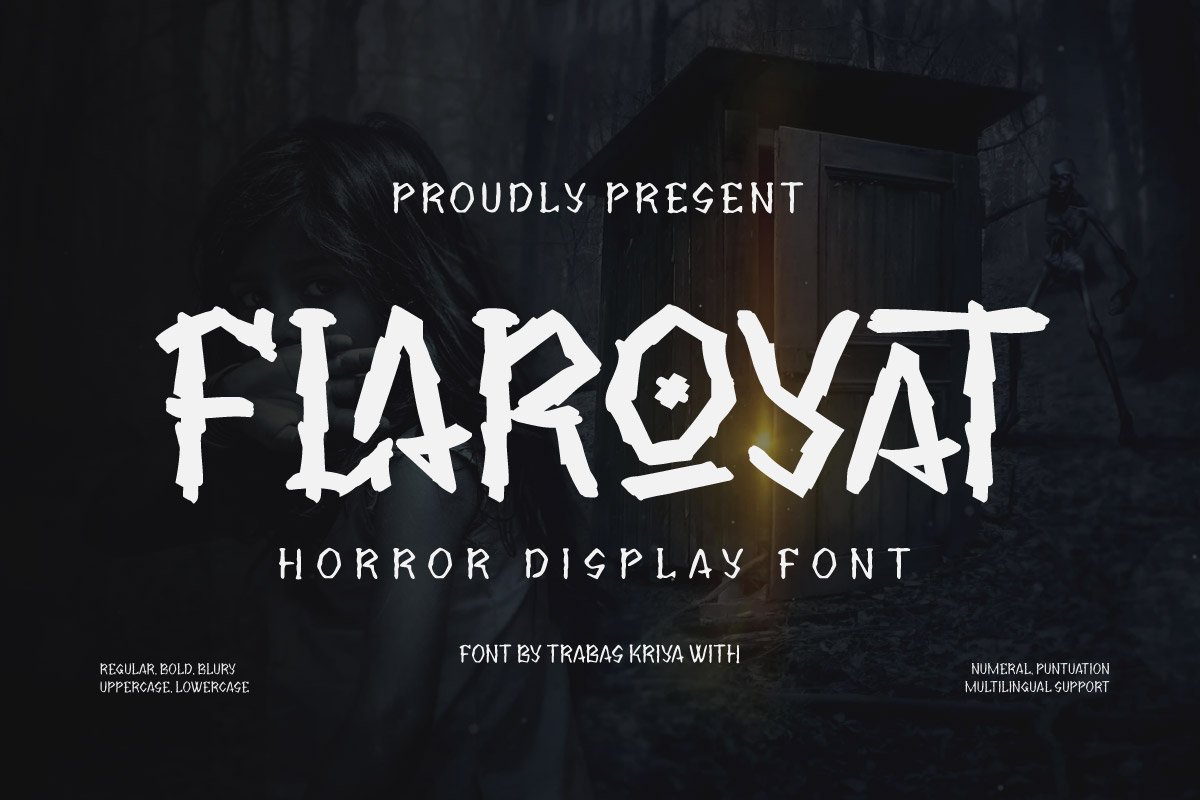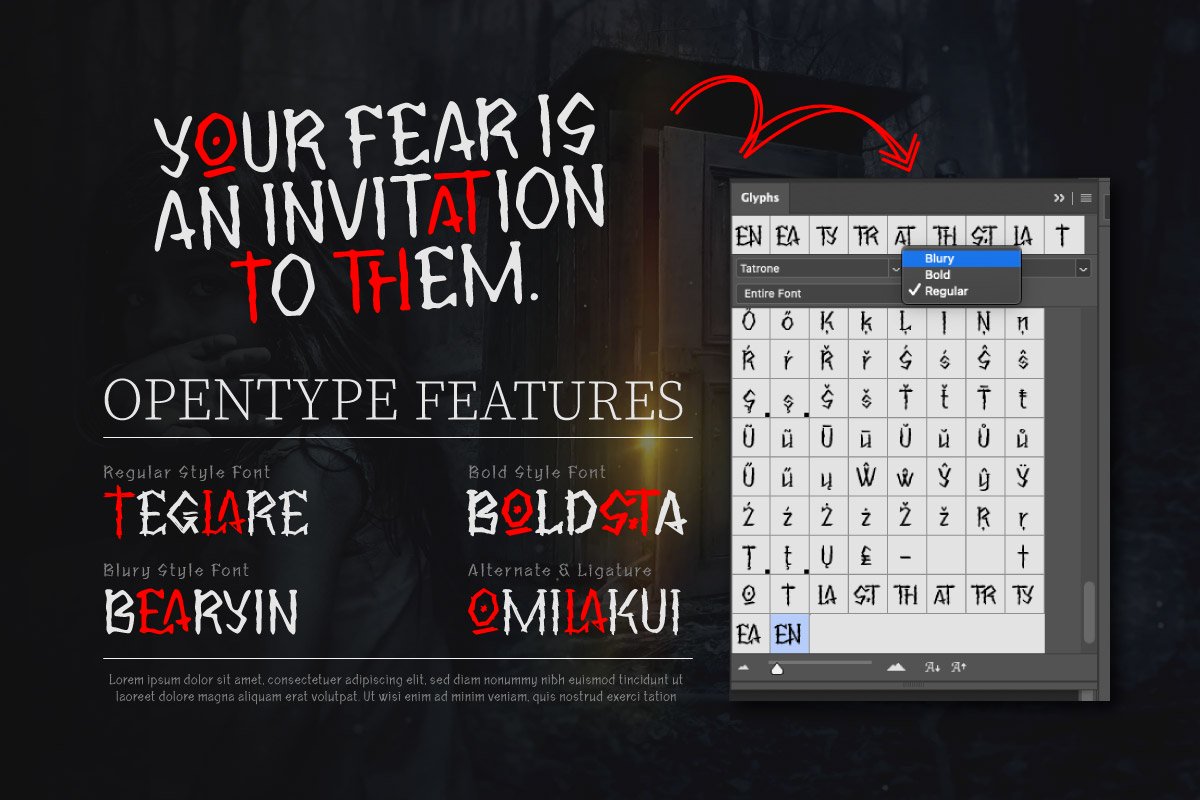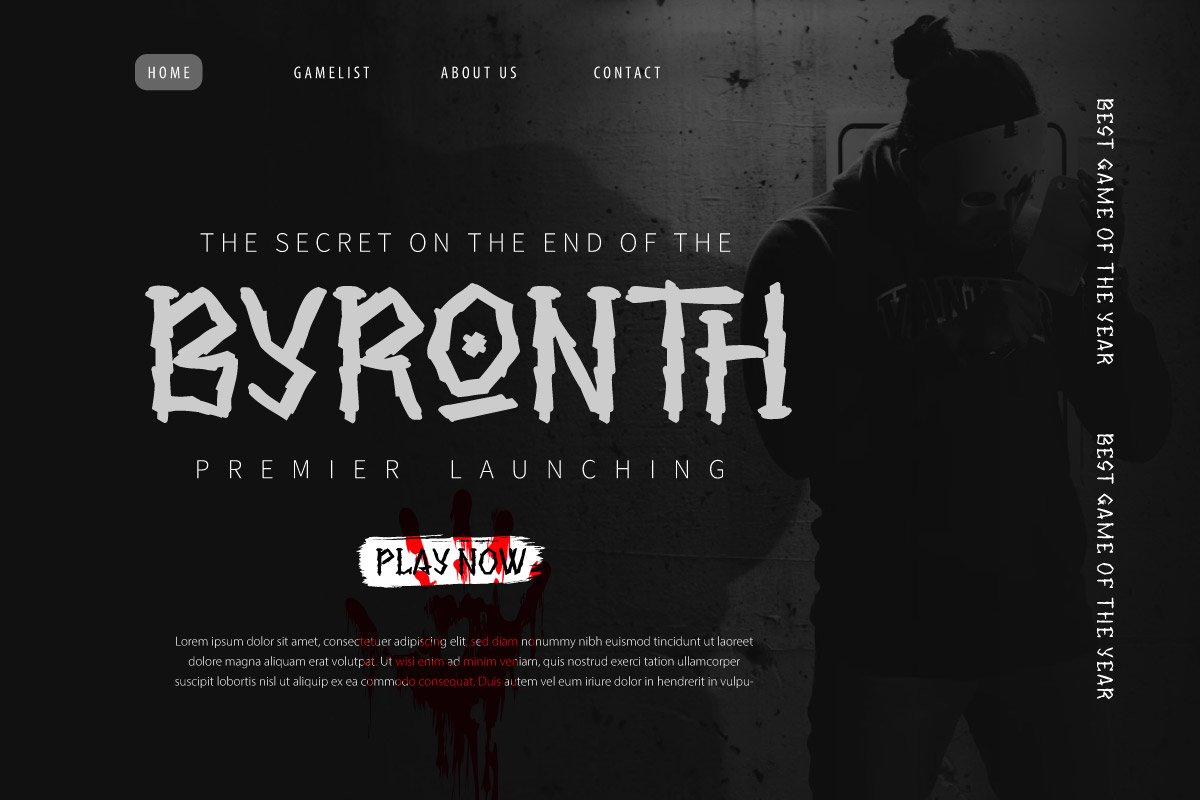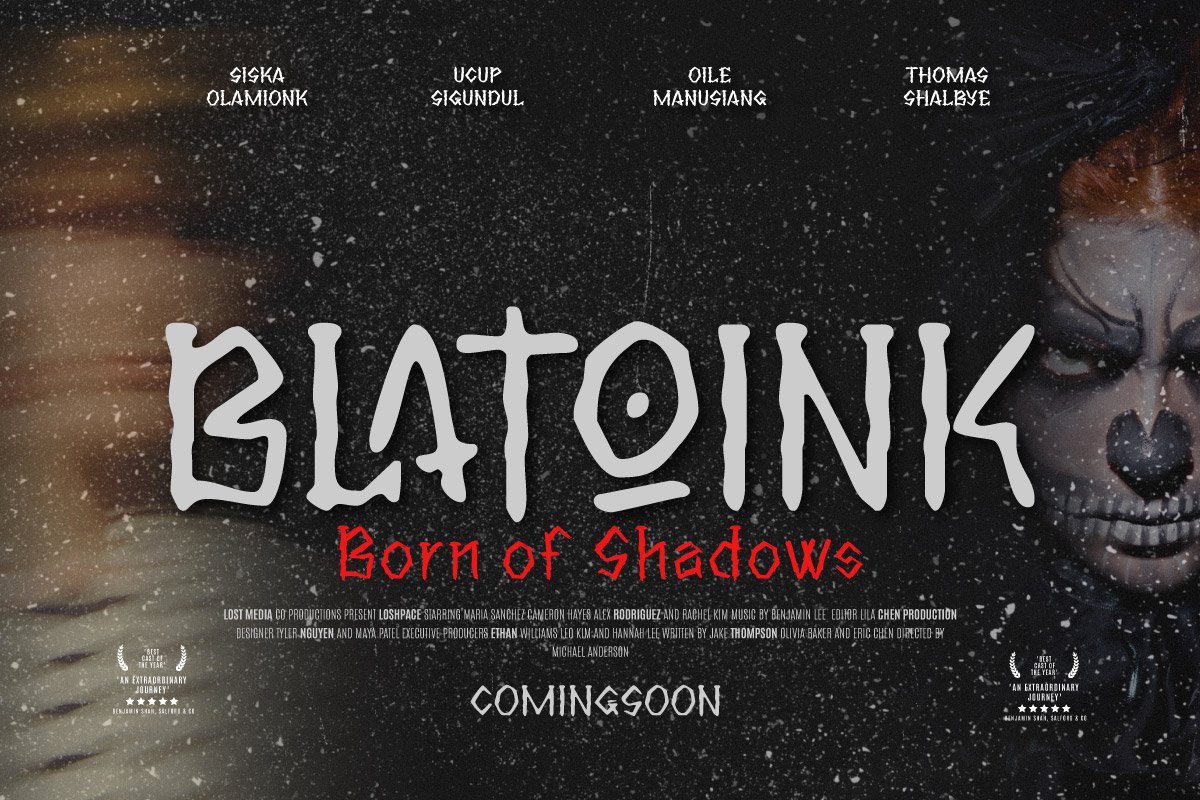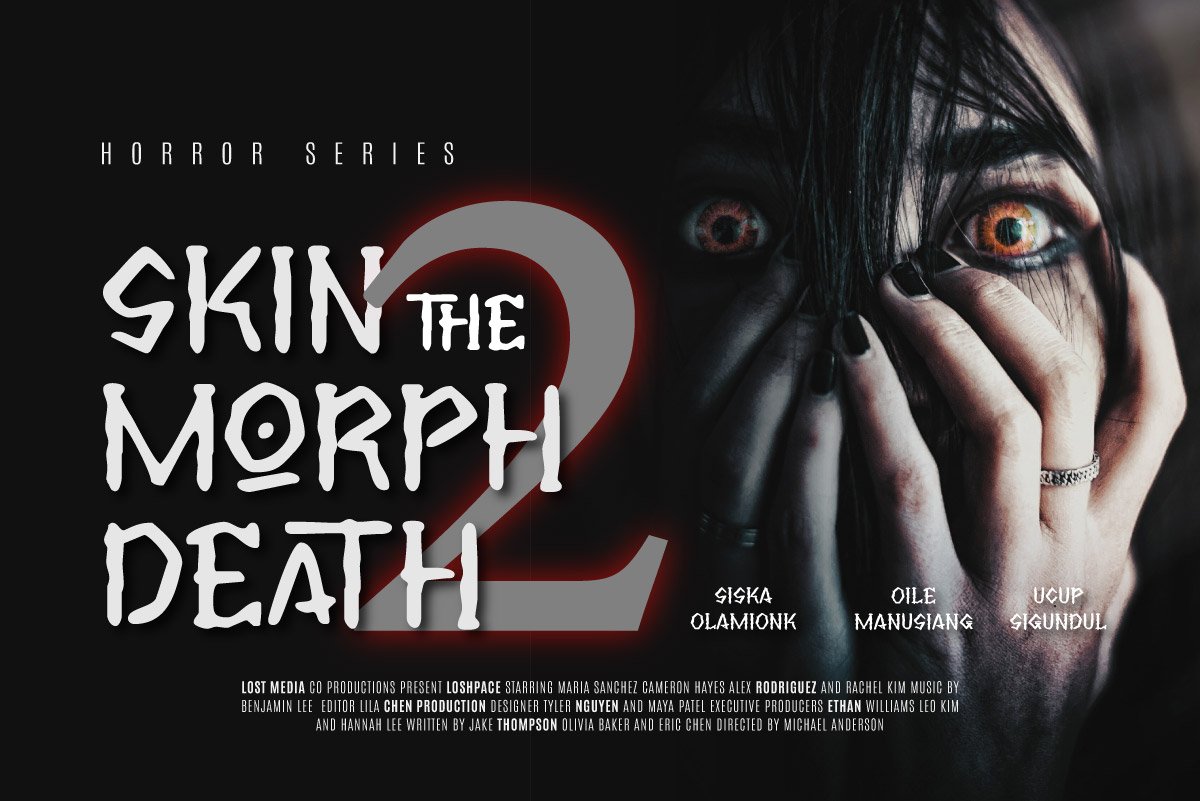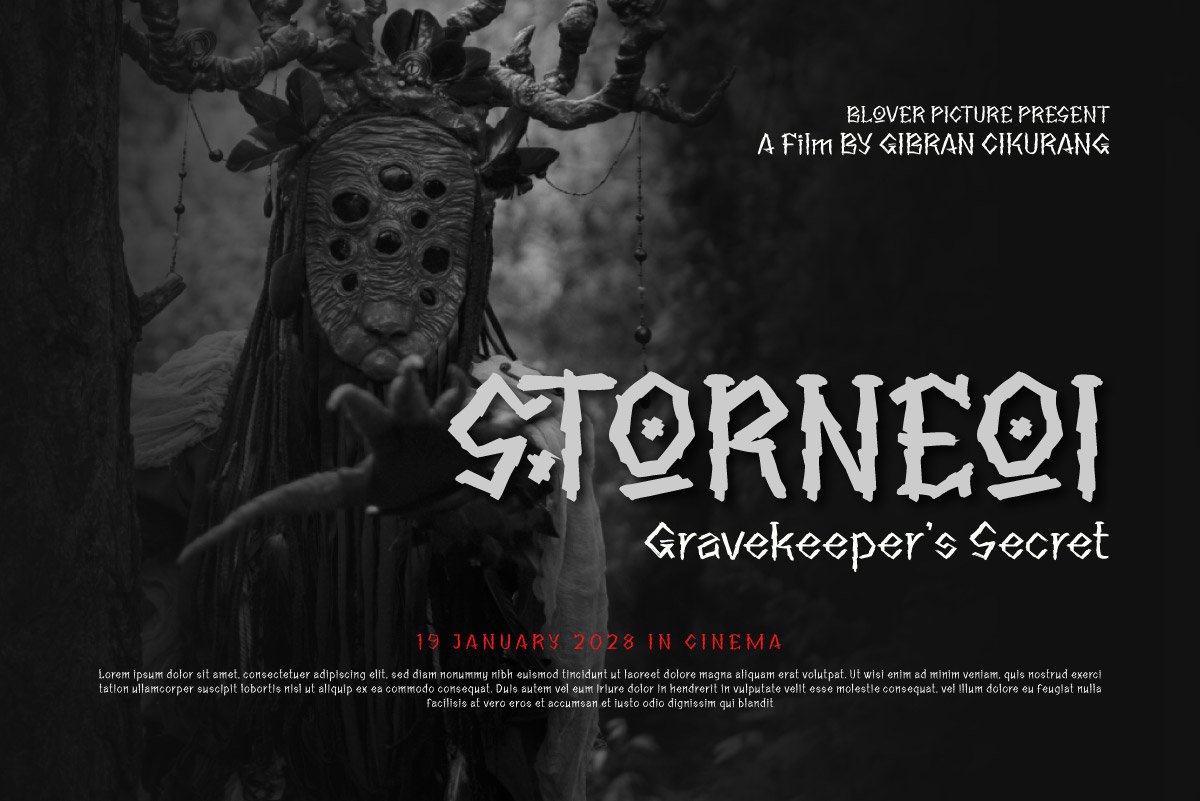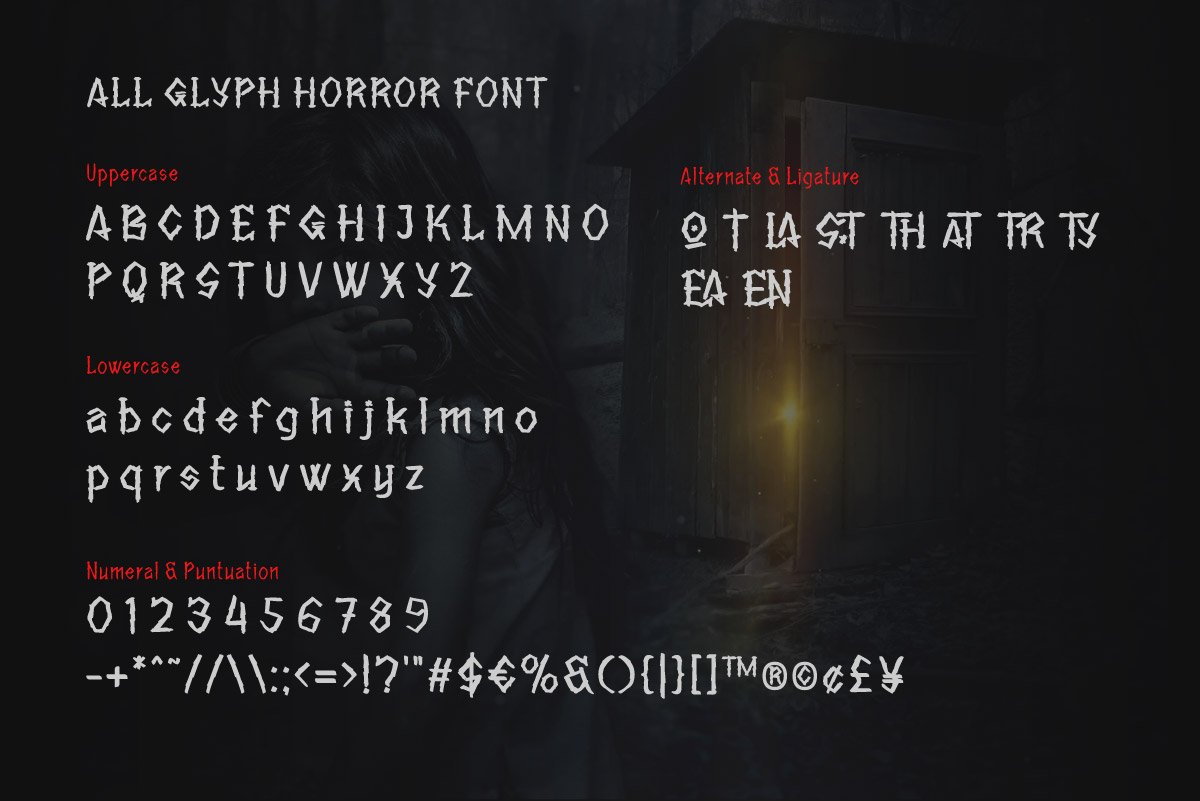
Flaroyat – Display Horror Font
Flaroyat is a horror display font that drips with tension and unease. With its jagged strokes, raw textures, and eerie details, it’s designed to capture the chilling atmosphere of nightmares, haunted houses, and midnight terrors. Available in Regular, Bold, and Blury styles, Flaroyat gives you the flexibility to create everything from sharp, sinister titles to ghostly, fading effects that enhance the horror vibe.
This font comes with uppercase and lowercase letters, numerals, punctuation, and multilingual support, making it a versatile choice for horror movie posters, Halloween invitations, book covers, gaming titles, and any project that needs a bold, fear-inducing aesthetic.
Step into the darkness with Flaroyat — a font that transforms ordinary text into something terrifyingly unforgettable.